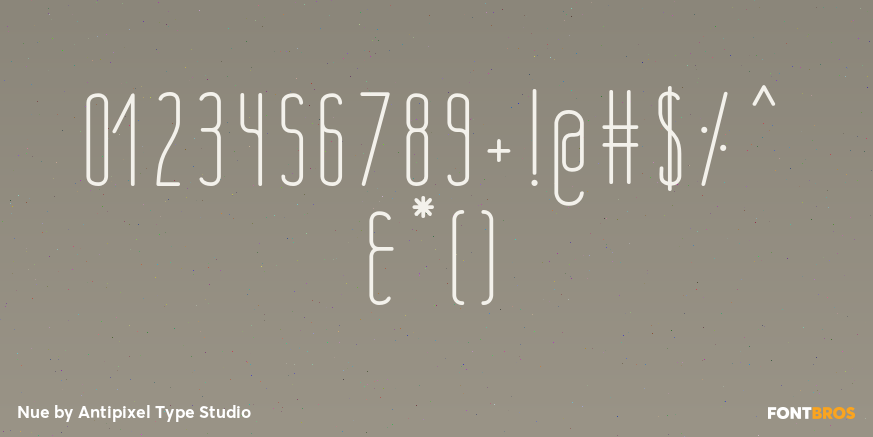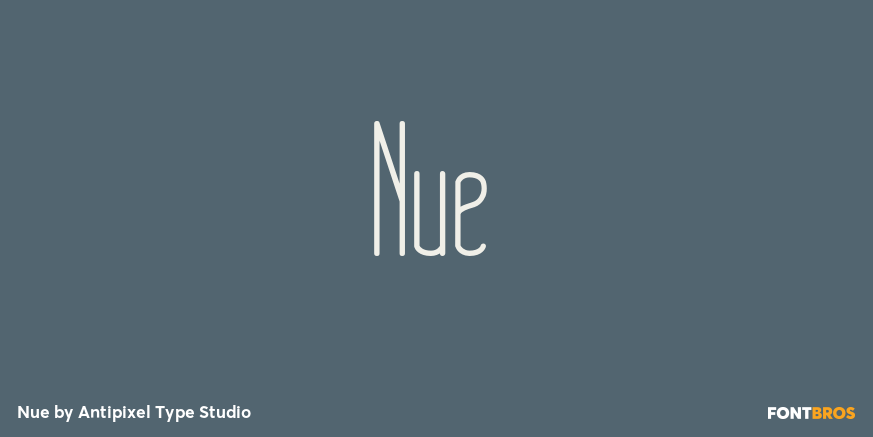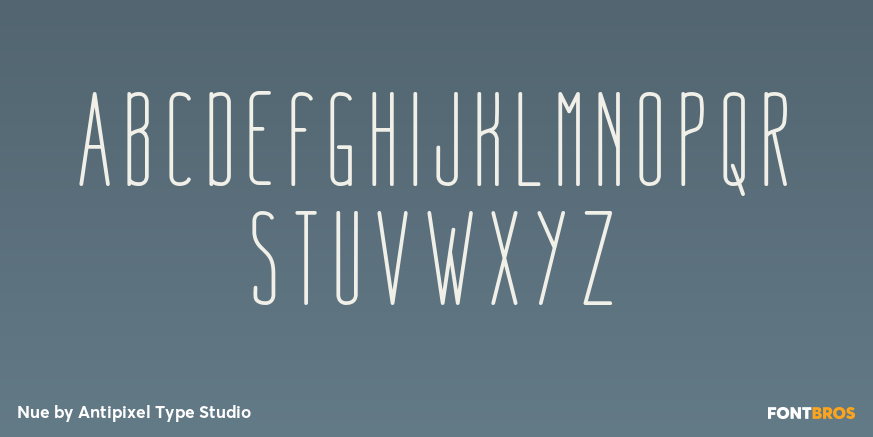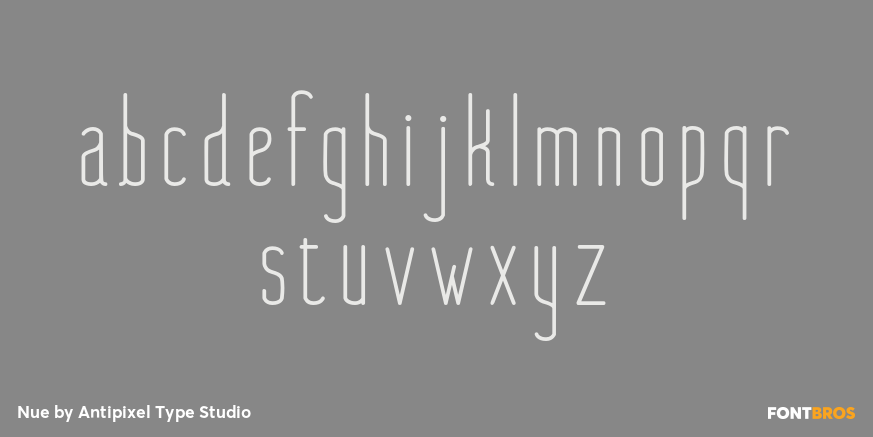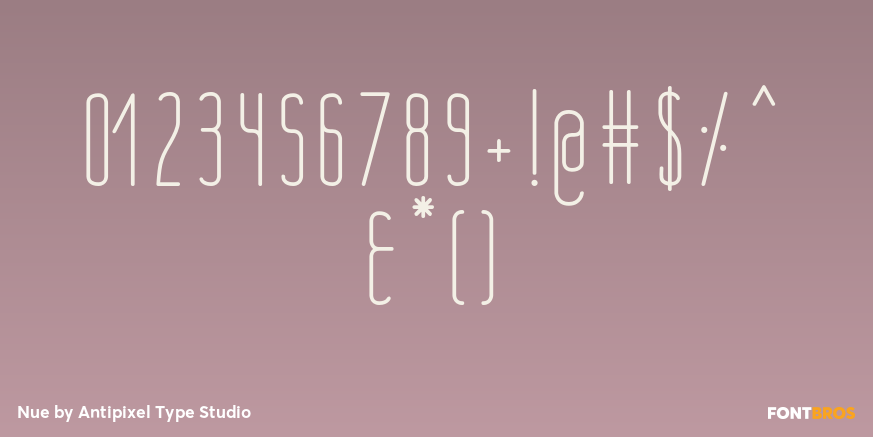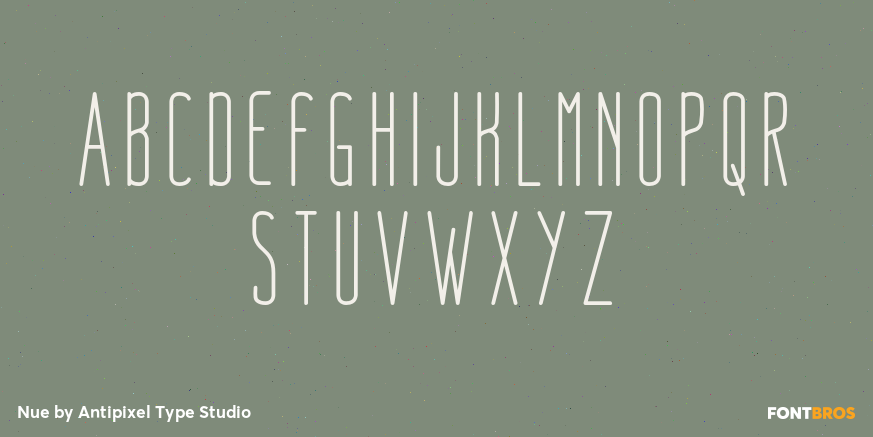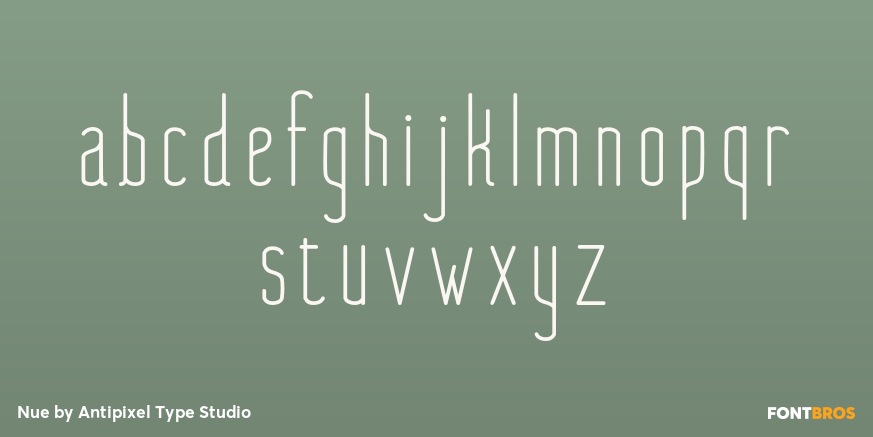
Nue
Font Family by Antipixel Type Studio
Nue is a futuristic sans serif with a clean, contemporary feel and a distinctly forward-looking edge. Its stripped-down geometry gives it a sleek, controlled voice that feels at home in modern branding, technology-driven visuals, and other display settings where a sharp, minimal impression matters.
This family includes 3 styles—Light, Medium, and Bold—giving you room to build hierarchy while keeping a consistent look. Designed by Antipixel Type Studio, it’s a strong choice for logos, posters, packaging, social graphics, and signage that call for a modern sans with a futuristic tone.